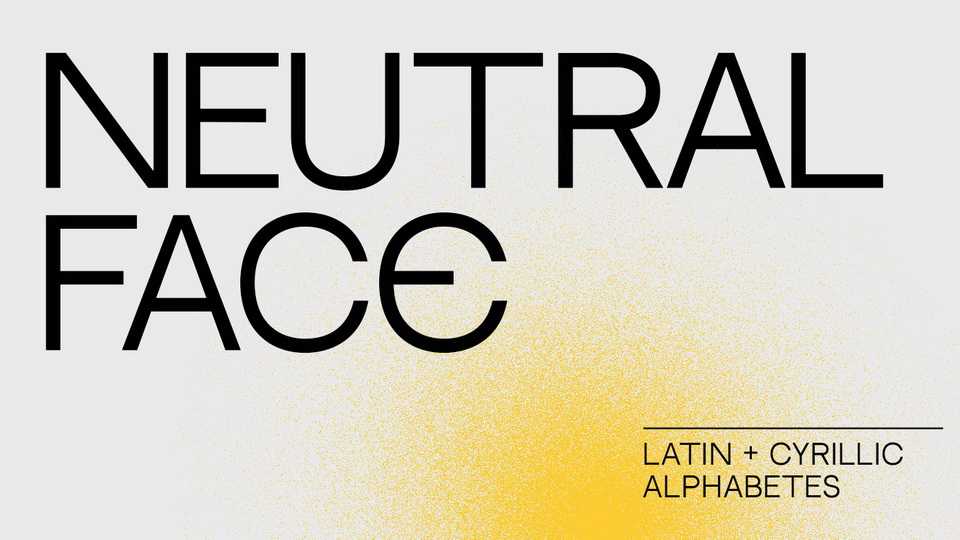
Download Neutral Face typeface, a contemporary sans serif font family in two weights, inspired by Swiss style. Neutral Face is a versatile font that work for both text and headlines.
Designer: Vadym Axieiev